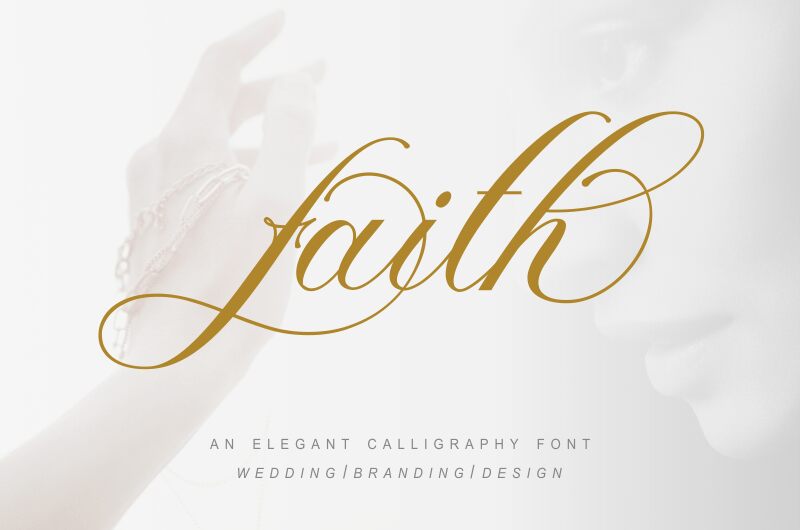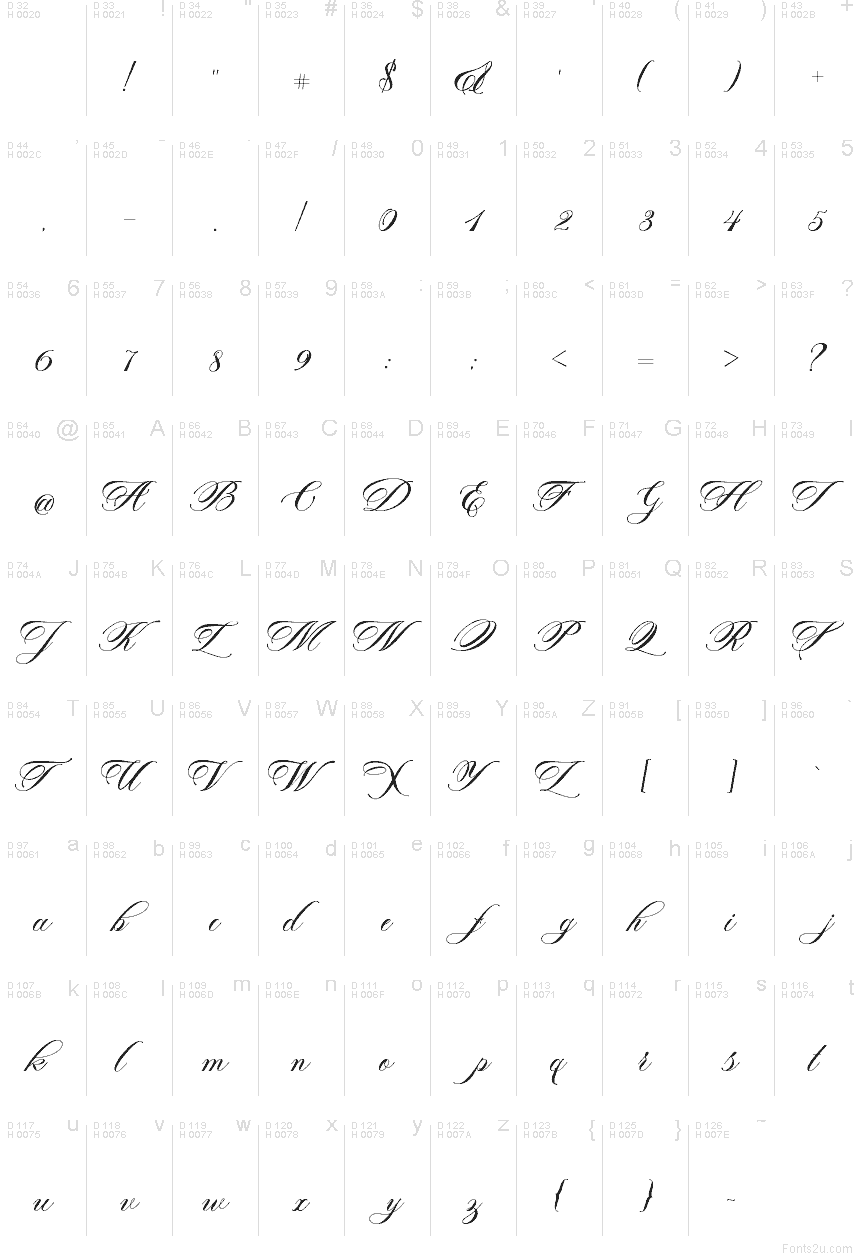
Faith font by Rayyan is a free calligraphy font that pours across the page like wet ink from a pointed pen. Flowing, elongated strokes and elegant loops give it that classic invitation feel, while the tight rhythm keeps even its most generous flourishes readable. There’s a graceful tension between its fine hairlines and fuller curves, so headlines feel luxurious rather than fussy.
Using Faith, this free font shines on wedding suites, save-the-dates, logo wordmarks, packaging for beauty or fragrance, inspirational quote graphics, and upscale social media posts. The generous swashes and PUA-encoded extras make it easy to dial the drama up or down depending on the project. For balance, pair Faith with a clean, modern sans serif in small caps and let Faith take the lead at larger sizes.